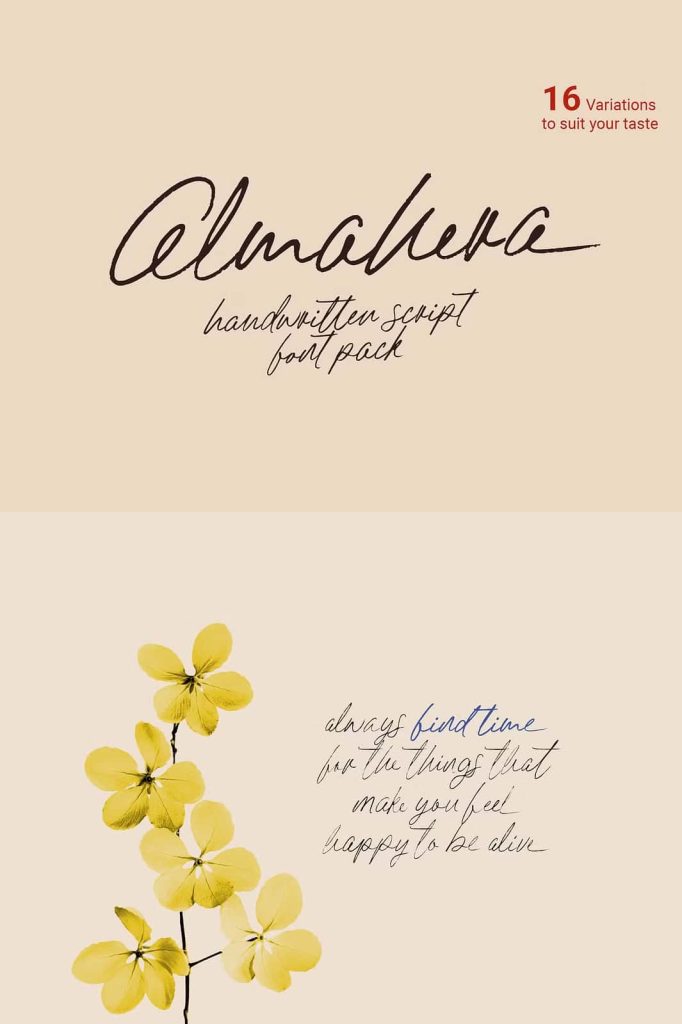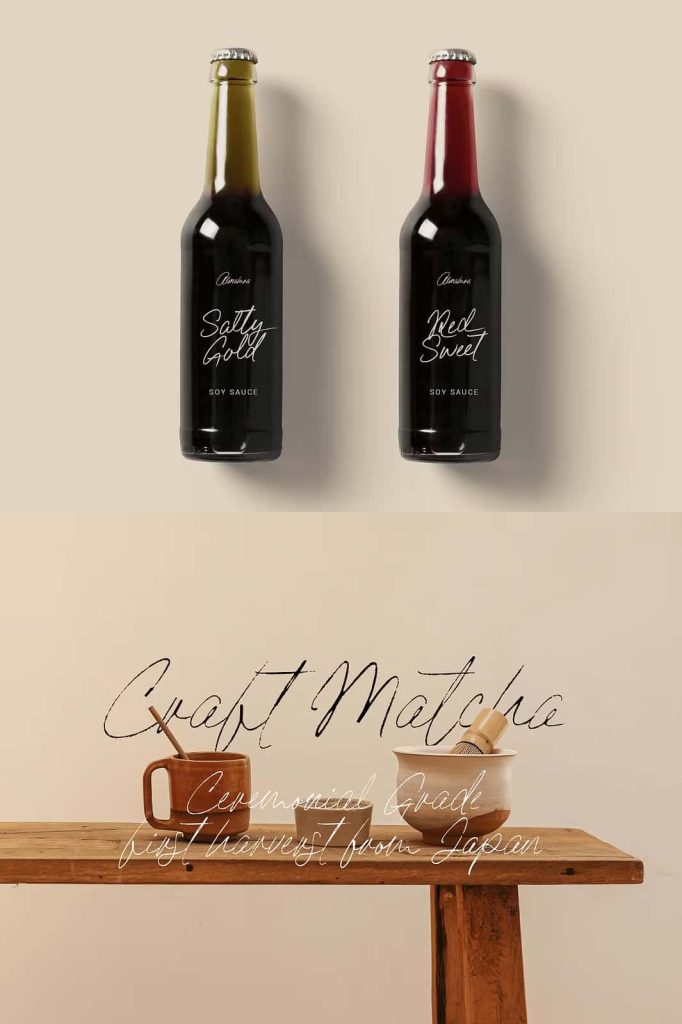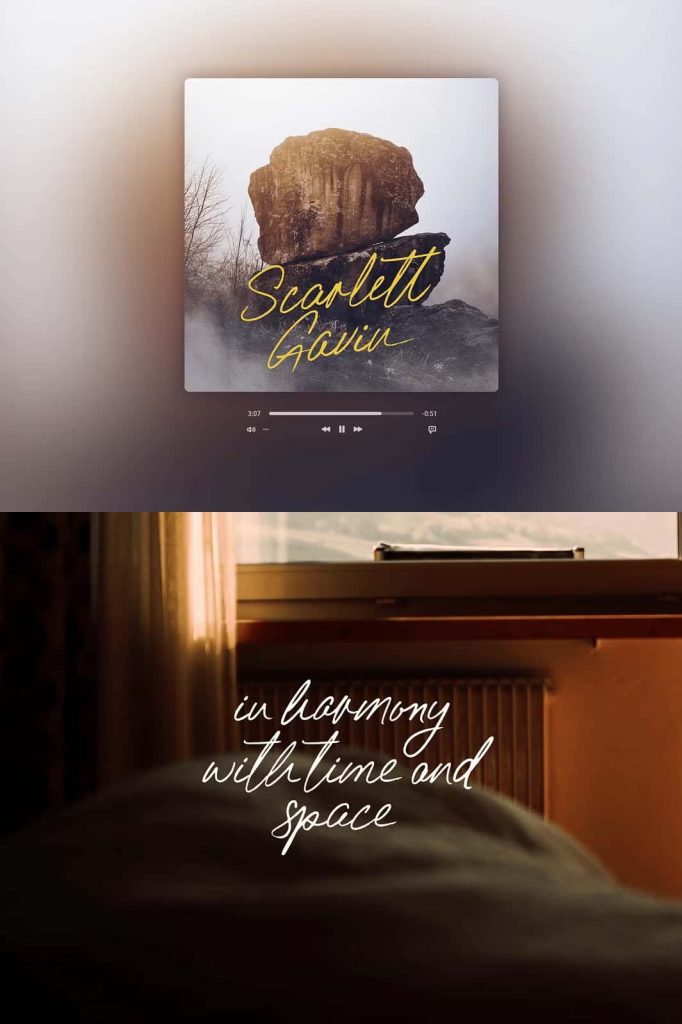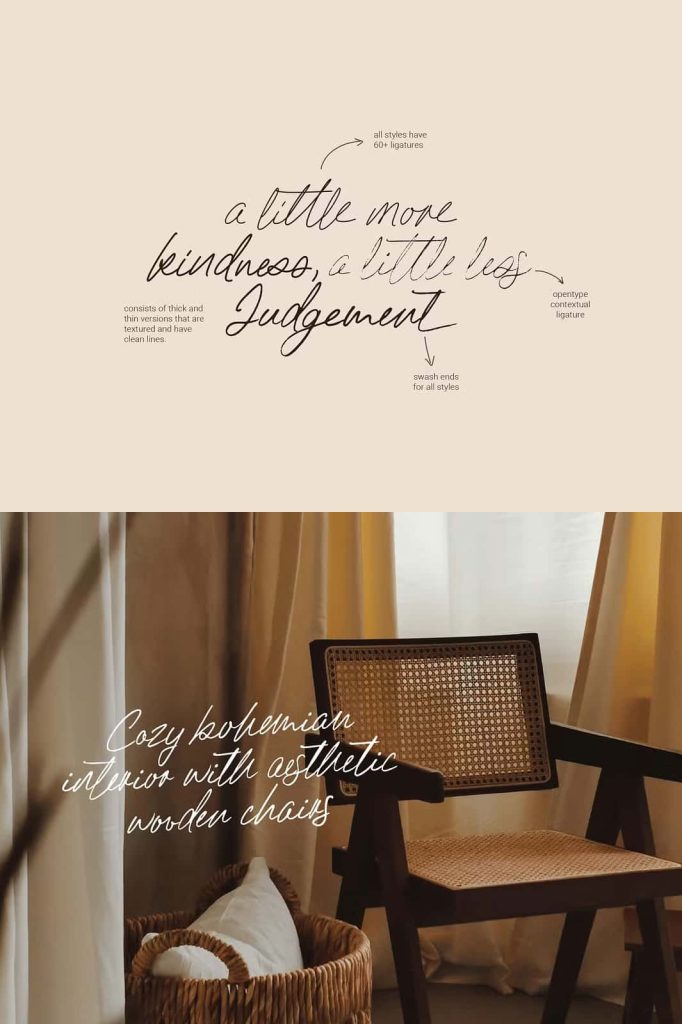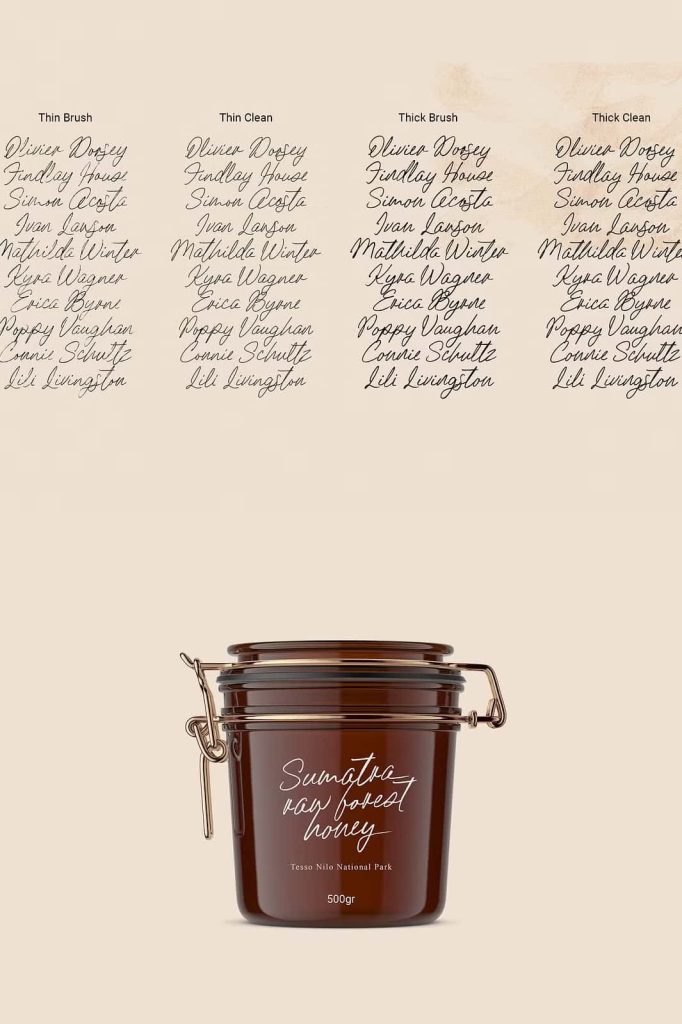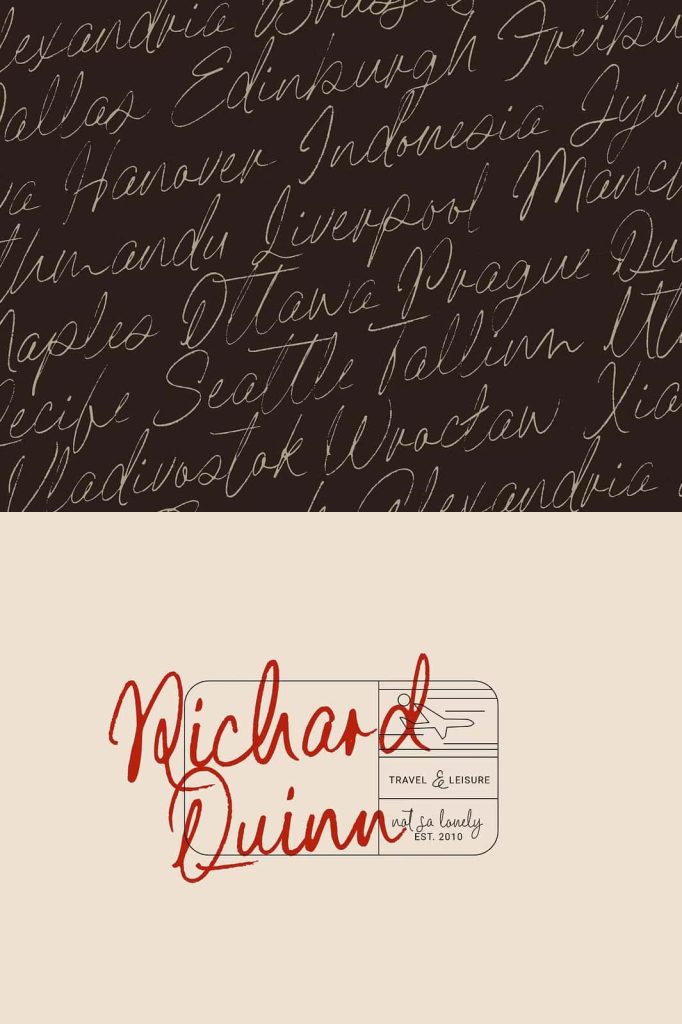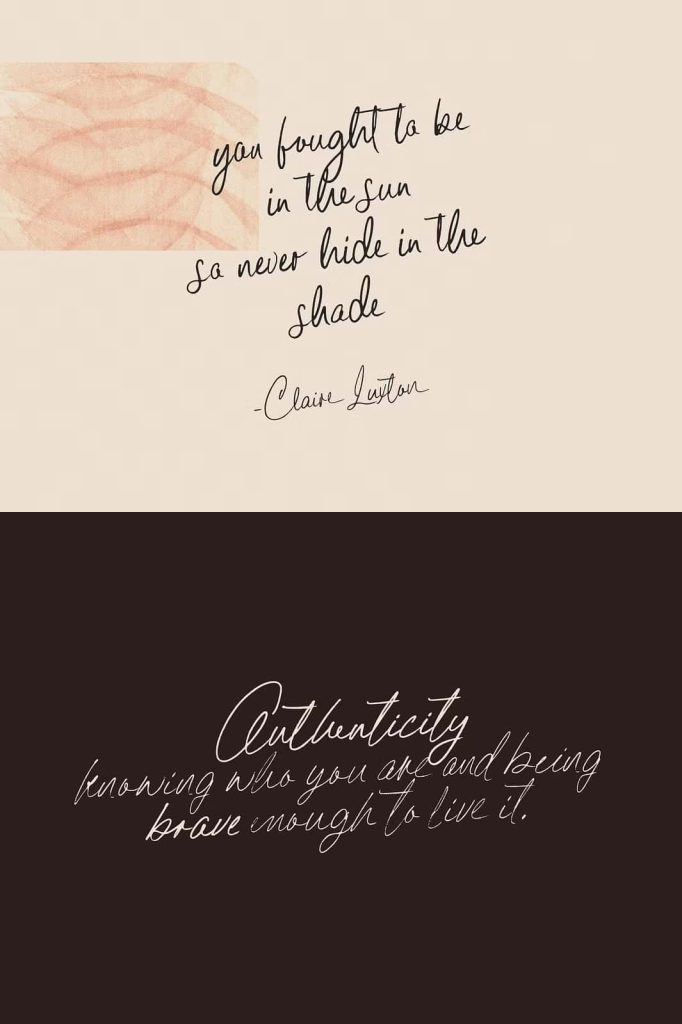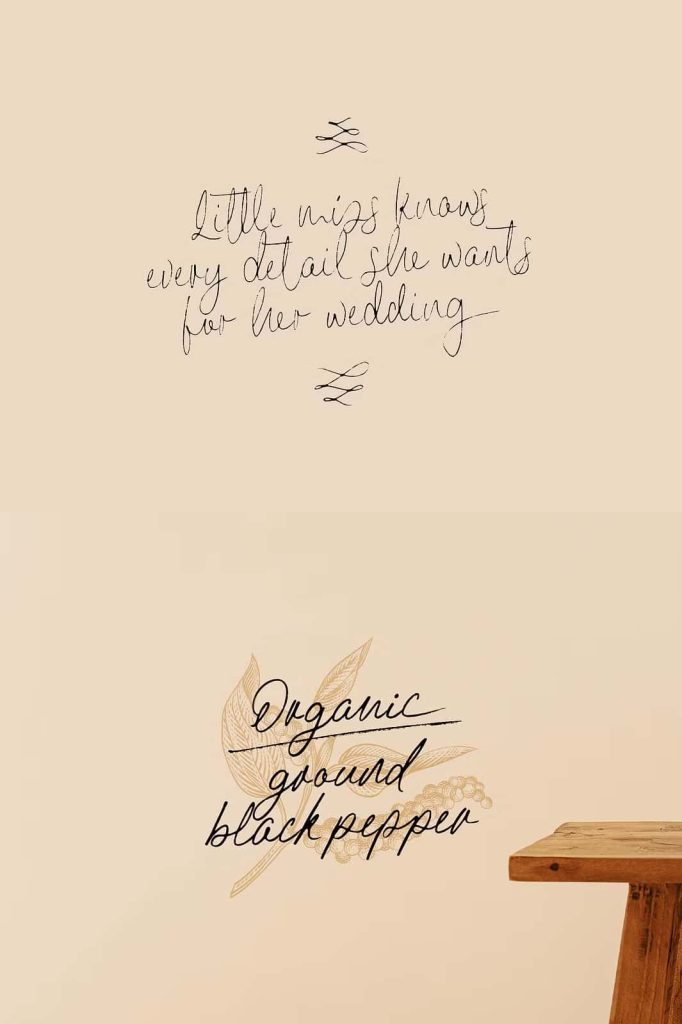
Almahera Script Brush Font
Almahera Script Brush Font combines the timeless beauty of natural handwriting with the artistic elegance of delicate brush strokes. Designed to capture the authentic movement of a brush pen, this typeface delivers a sophisticated handwritten appearance that feels both personal and expressive. Every character features smooth curves, flowing connections, and dynamic stroke variations that create a natural and visually appealing rhythm.
With its organic brush textures and carefully crafted letterforms, Almahera brings warmth, creativity, and personality to every design. Whether you are creating a professional brand identity, a stylish invitation, or eye-catching social media content, this script brush font helps your typography stand out with confidence and elegance.
Experience the Beauty of Authentic Handwritten Typography
Almahera embraces the natural imperfections and artistic details found in genuine handwriting. Its sleek and free-flowing lines create a seamless writing experience, while the varied brush strokes add depth and visual interest to every word. Unlike ordinary script fonts, Almahera captures the spontaneity and charm of hand-drawn lettering, allowing designers to create work that feels authentic and engaging.
The thin brush strokes give the font a refined and graceful appearance without sacrificing character. Each letter flows naturally into the next, creating smooth transitions that enhance readability while maintaining a handcrafted aesthetic. This balance between elegance and expressiveness makes Almahera suitable for both modern and classic design styles.
Designed to Elevate Creative Projects
Almahera Script Brush Font adapts effortlessly to a wide variety of design applications. Its versatile style allows designers, entrepreneurs, and content creators to build compelling visuals that communicate personality and professionalism.
Branding and Logo Design
Create memorable logos and brand identities with Almahera’s distinctive handwritten style. The font adds a unique and artistic touch that helps brands establish a stronger emotional connection with their audience. Its expressive brush strokes communicate creativity, authenticity, and sophistication, making it ideal for fashion brands, beauty businesses, lifestyle products, creative studios, and handmade goods.
Wedding Invitations and Event Stationery
Almahera brings elegance and romance to wedding invitations, save-the-date cards, greeting cards, and event stationery. The graceful script style creates a luxurious and personalized appearance that enhances the overall presentation of special occasions.
Packaging and Product Labels
Transform ordinary packaging into visually appealing branding assets. Almahera adds character and charm to product labels, tags, gift boxes, and packaging designs. Its handcrafted look helps products appear more premium, personal, and memorable on store shelves and online marketplaces.
Social Media Graphics and Marketing Materials
Capture attention with stylish typography for social media posts, advertisements, banners, and promotional materials. Almahera’s dynamic brush texture creates strong visual impact, helping important messages stand out while maintaining an elegant and creative aesthetic.
Key Features of Almahera Script Brush Font
- Elegant handwritten script style with natural brush-inspired details.
- Smooth and flowing letter connections for beautiful typography compositions.
- Thin brush strokes that provide a refined and sophisticated appearance.
- Organic brush textures that mimic authentic hand lettering.
- Expressive character shapes filled with personality and creativity.
- Versatile design suitable for both digital and print applications.
- Professional yet artistic style for branding and creative projects.
- Highly readable letterforms that maintain visual appeal at different sizes.
Why Choose Almahera Script Brush Font?
Almahera offers more than just attractive letterforms. It provides designers with a powerful creative tool that combines elegance, authenticity, and versatility. The font’s natural flow and expressive brush textures help transform simple text into visually compelling typography that captures attention and leaves a lasting impression.
Whether you are designing a logo, creating packaging, developing marketing materials, or crafting beautiful invitations, Almahera delivers the perfect balance between sophistication and artistic expression. Its handcrafted character allows every project to feel unique, personal, and professionally designed.
Bring Personality to Every Design
If you are searching for a script brush font that showcases elegance, creativity, and authenticity, Almahera Script Brush Font is an excellent choice. Its flowing handwritten style, dynamic brush textures, and expressive details make it a valuable addition to any designer’s font collection. Use Almahera to create captivating typography that communicates emotion, enhances brand identity, and elevates the visual quality of your creative projects.